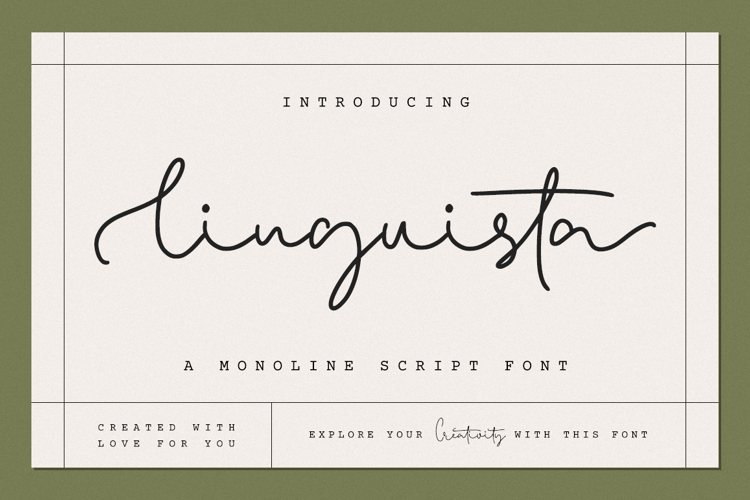
Linguista Font
Linguista is a gorgeous monoline script, full of personality and curves. It features a natural flow that makes it perfect for any project that requires a handwritten feel.